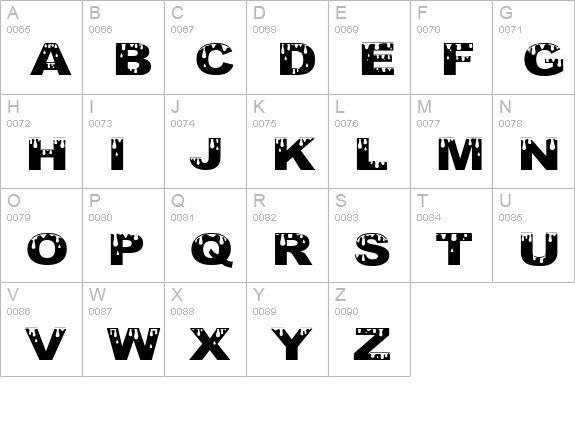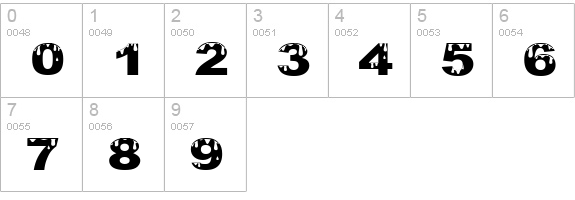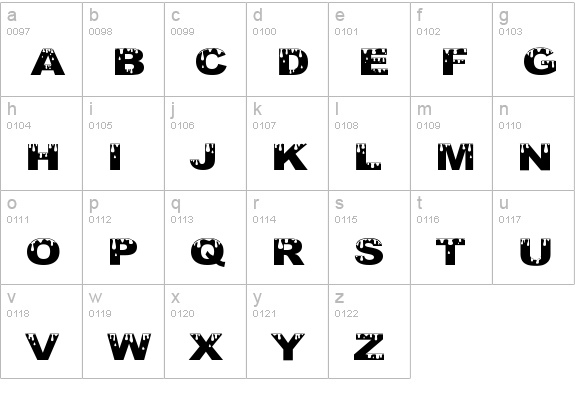
Yurine Overflow Font Details
Yurine Overflow font is a stylish and elegant typeface that exudes sophistication and charm. Its flowing lines and intricate details make it a perfect choice for adding a touch of luxury to your designs. This font is versatile and can be used for a variety of projects, from branding to invitations to web design. Best of all, Yurine Overflow font is completely free to download at FontsMarket.com. Whether you're a seasoned designer or just starting out, this font is sure to elevate your creations and make them stand out from the crowd. Don't miss out on the opportunity to add this beautiful font to your collection today!